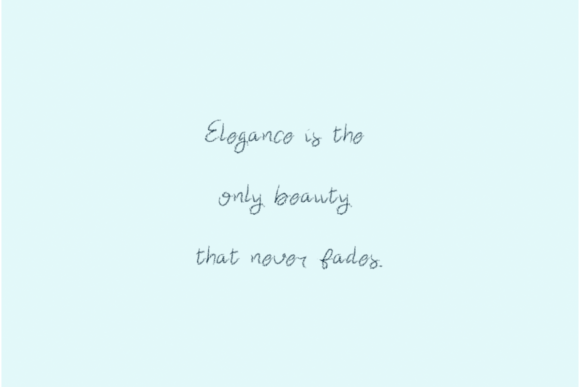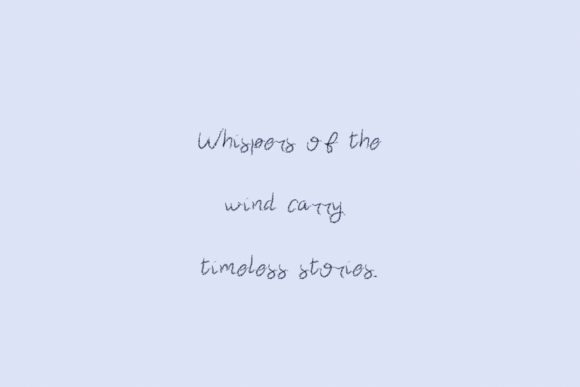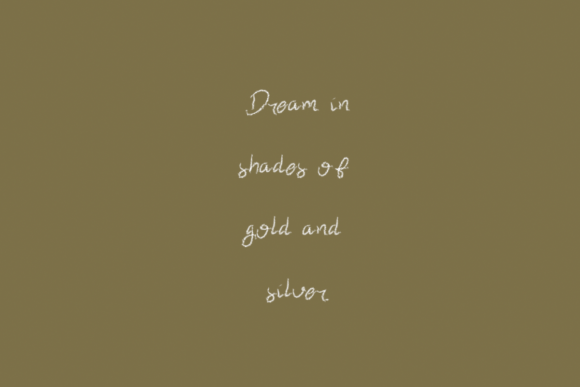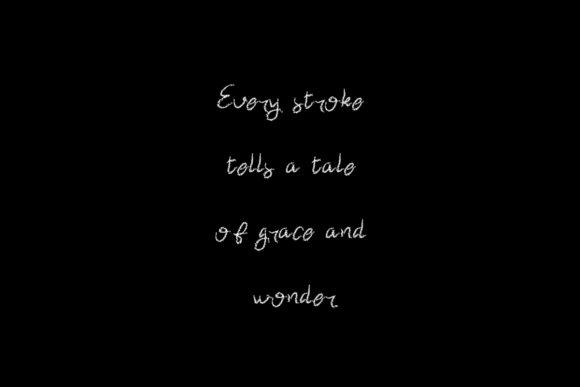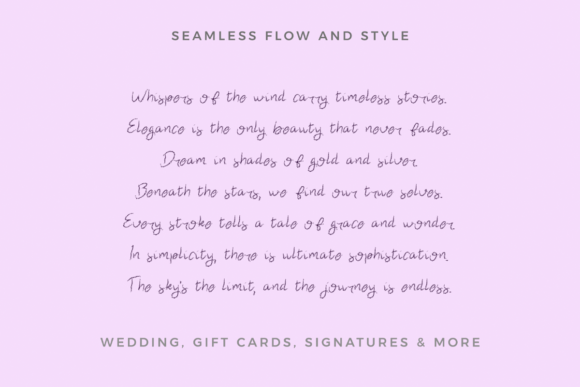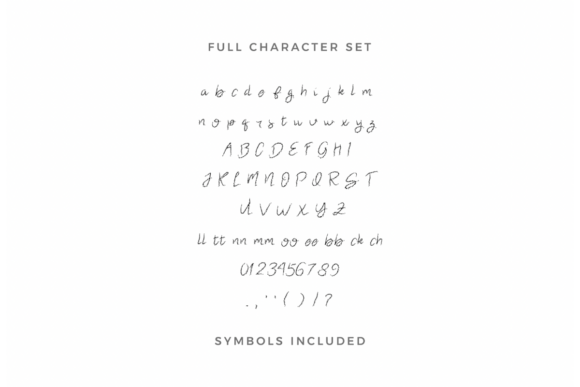
Introduction to Scribbler Font
Do you remember the first time you saw a handwritten note from a loved one? The way the ink flowed onto the paper, telling a story with every curve and swirl? For designers, capturing that essence of handwritten charm in digital design can be a challenge. But what if you could bring that same magic to your creative projects? Enter the Scribbler Font, a beautifully handlettered creation that channels the elegance and charm of handwritten scripts into digital design.
As a valuable design resource, the Scribbler Font offers a high-quality, free download that’s perfect for designers looking to add a touch of personality to their work. With its delicate yet impactful strokes, this script font is ideal for projects where a transparent background and a touch of whimsy are required.
Key Features of Scribbler Font
- Unique Handwritten Style: The Scribbler Font features a distinctive, handwritten design that is perfect for creative projects, adding a personal touch to your work.
- High-Quality Design Resource: This font is a high-quality design resource that is ideal for use in various applications, including digital art, graphic design, and publishing.
- Transparent Background: The Scribbler Font comes with a transparent background, making it easy to use on any background or design element.
- Resolution: The font is designed at 300 DPI, making it suitable for use in high-resolution printing and digital applications.
- Perfect for Creative Projects: The Scribbler Font is a versatile design element that is perfect for use in various creative projects, including invitations, posters, and social media graphics.
Honest Review: Scribbler Font
As a designer, I’m always on the lookout for high-quality design resources that can elevate my creative projects. Recently, I came across the Scribbler Font, and I’m excited to share my honest review with you.
- ✨ The Scribbler Font is incredibly versatile, making it perfect for a wide range of creative projects, from branding to editorial content.
- ⚠️ Some users may find the font a bit too playful for more formal or professional projects.
Overall, I’m impressed with the Scribbler Font. While it’s not perfect, its strengths far outweigh its weaknesses. If you’re looking for a high-quality, free design resource, I’d definitely recommend giving it a try.
Tips for Getting the Most Out of Scribbler Font
The Scribbler Font is ideal for creative projects, such as graphic design, digital art, and typography. It’s also great for use in presentations, reports, and other documents where a unique and eye-catching font is desired.